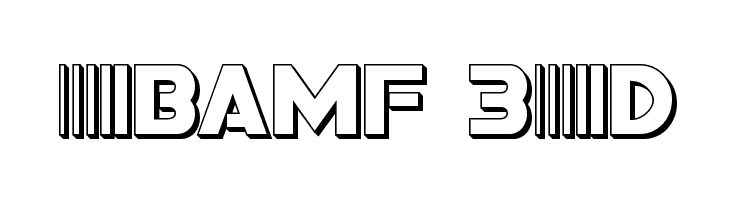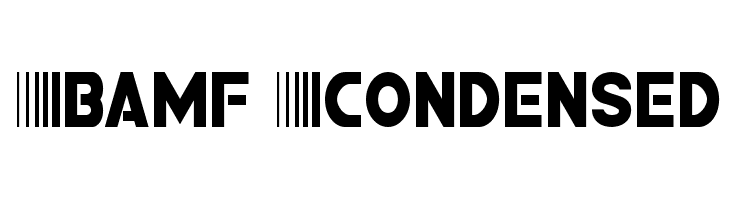
A bold, 3D font with a modern and impactful design.
A bold, 3D italic font with a modern and dynamic style.
A bold, geometric font with a modern and assertive style.
A bold, italic font with outlined characters and a dynamic, modern style.
A bold, geometric font with horizontal stripes for a modern, energetic look.
A bold, italicized font with a unique striped pattern, perfect for dynamic and modern designs.
A bold, geometric font with a modern, condensed style.
A bold, condensed italic font with a dynamic and modern style.
A bold, geometric font with a modern and impactful design.
A bold, italic, and expanded font with a futuristic and dynamic style.